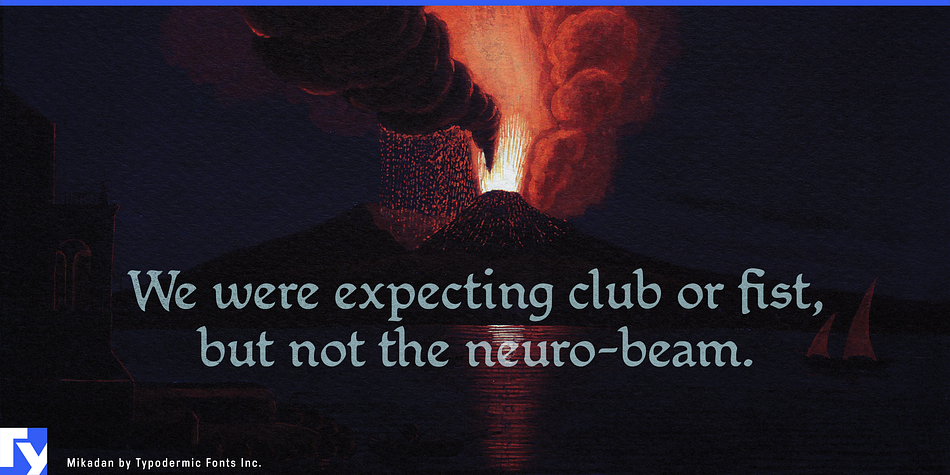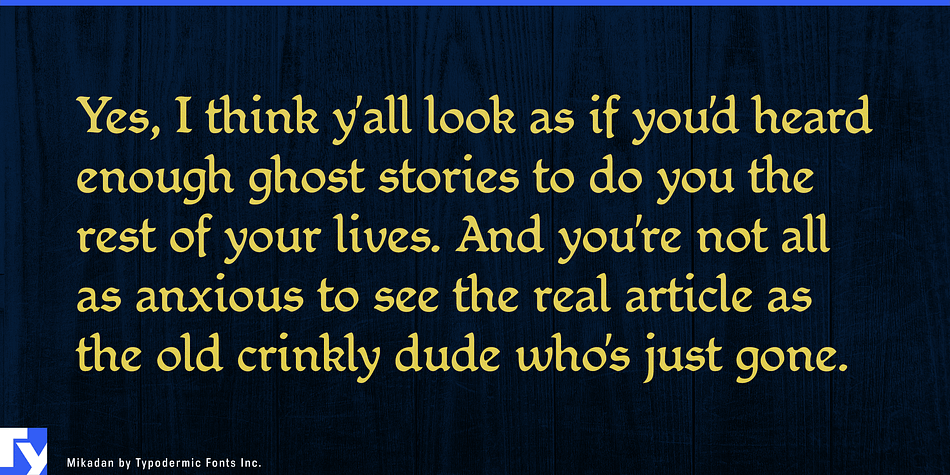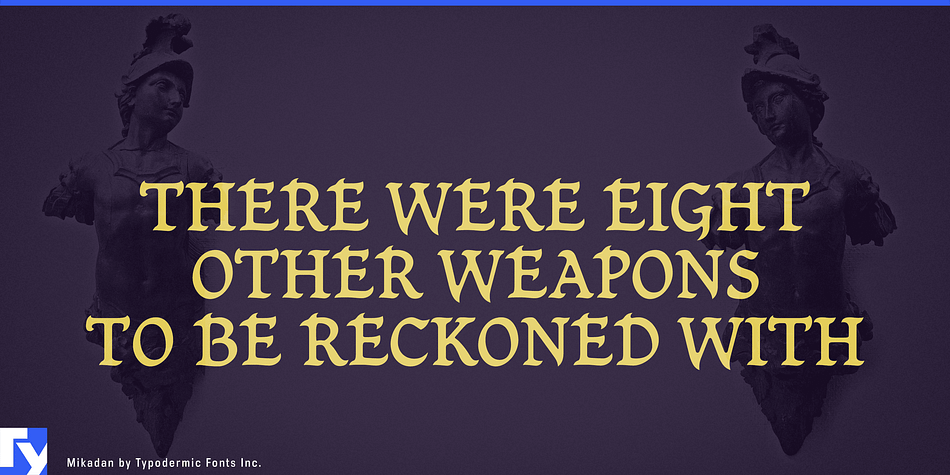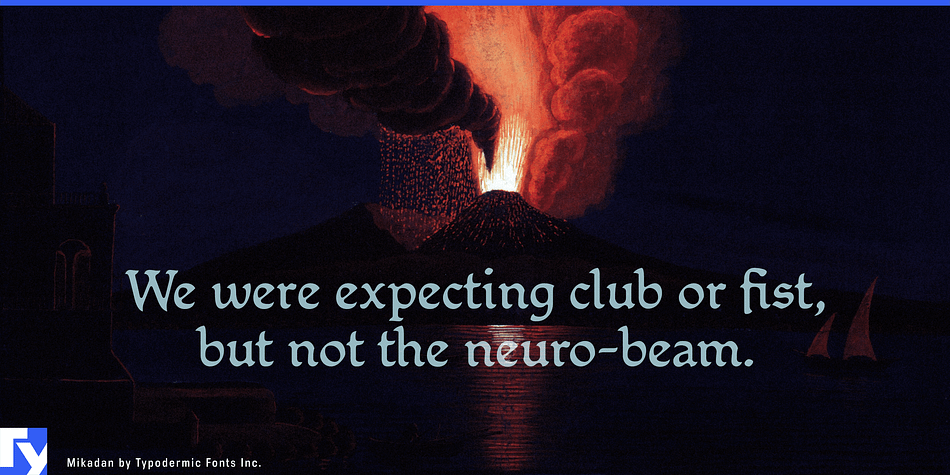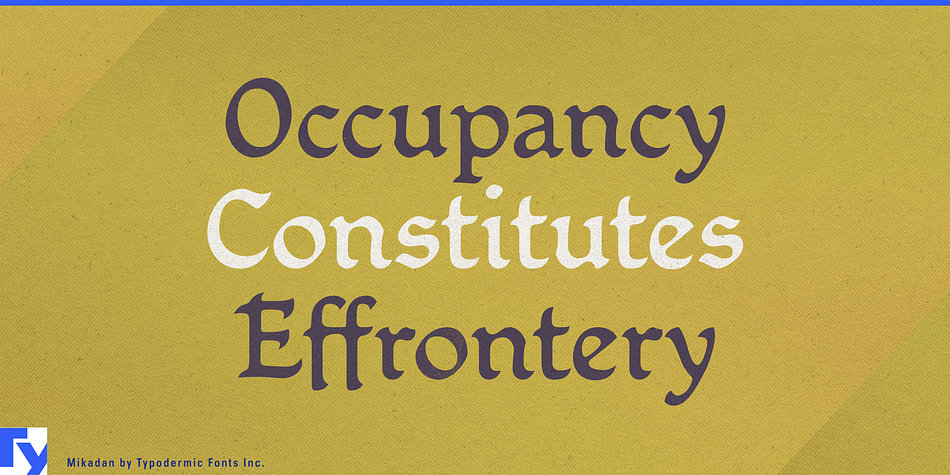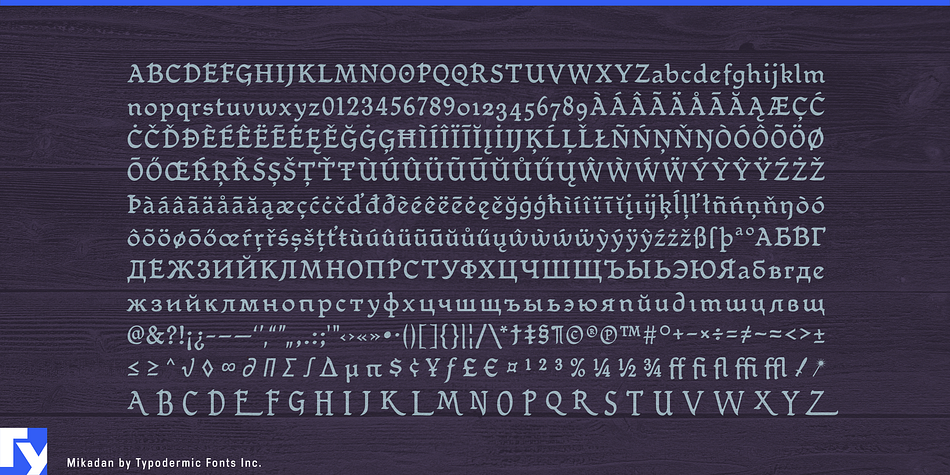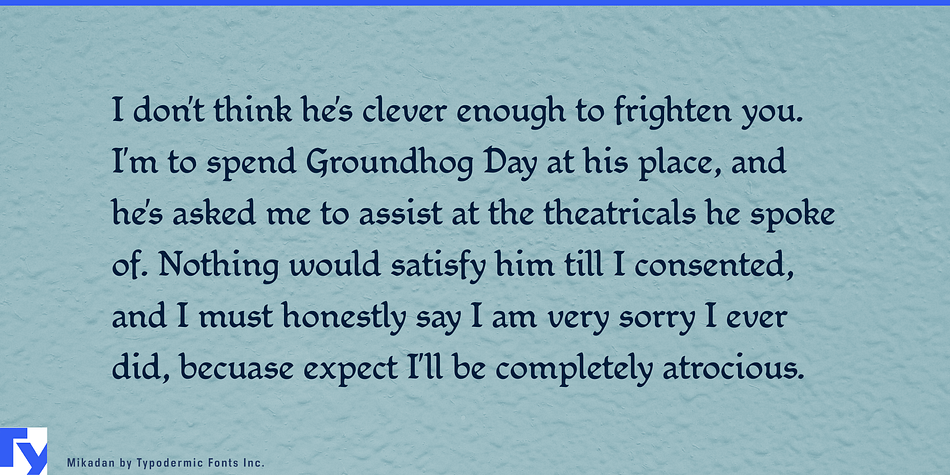
Mikadan is a historical font published by Typodermic Fonts Inc.
Mikadan is a tribute to Stepehson Blake’s Verona from 1948, which was in turn based on William Dana Orcutt’s Humanistic from 1904. The sharp corners are bladelike in appearance to suit fantasy themes. Mikadan has some of the legible qualities of Morris Fuller Benton’s Motto from 1915.